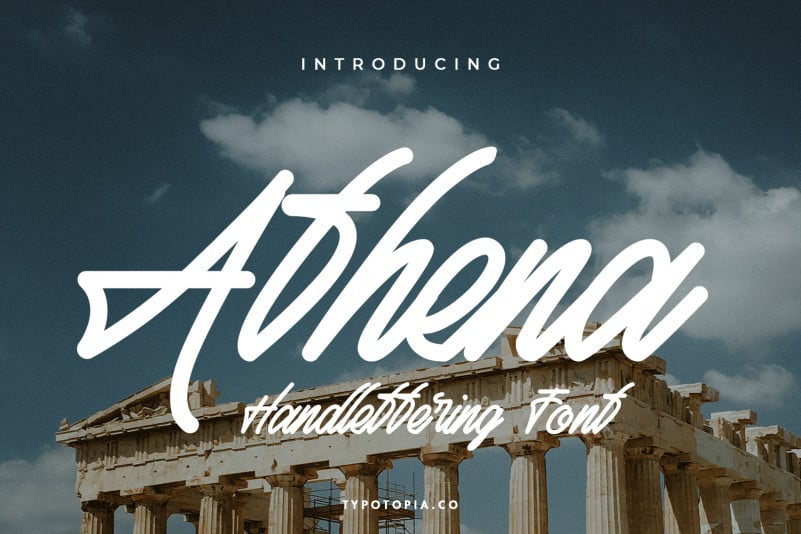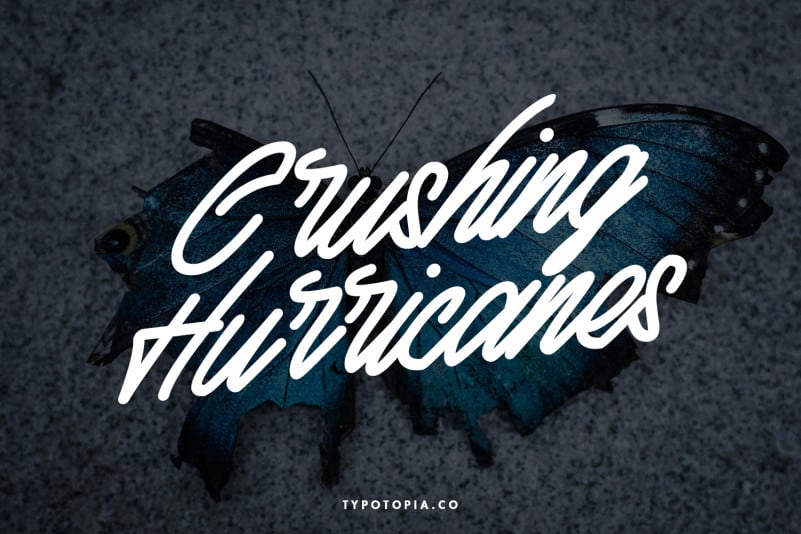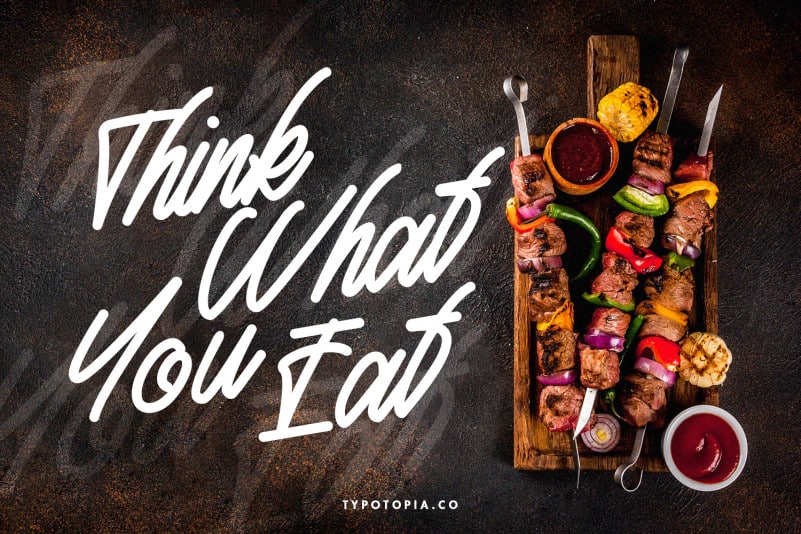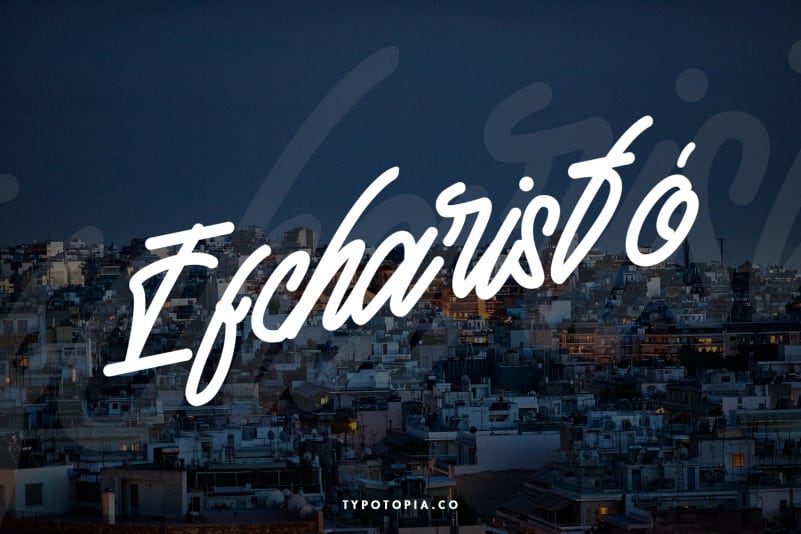
Athena Handwritten Font
Give your project an edge with the Athena Handwritten Font. This Fonts Comes is a bold connected script font with a clear style and dramatic movement. Every single letters have been carefully crafted to make your designs looks better.
Athena Handwritten Font is the great choice for several purpose, such as watermark, logo, business card design, quotes, album cover, invitation letter, stationery, and many other design project that need handwriting taste.